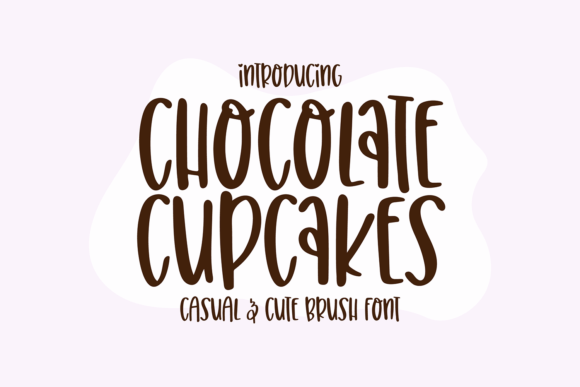
Introducing BFC Chocolate Cupcakes: The Whimsical Script Brush Font for Creative Projects
Are you looking for a font that adds a touch of whimsy and playfulness to your creative projects? Look no further than BFC Chocolate Cupcakes, a casual script brush font that’s perfect for social media, crafts, decor, invitations, and more! In this article, we’ll dive into the features and benefits of this delightful font and explore how you can use it to elevate your designs.
What is BFC Chocolate Cupcakes?
BFC Chocolate Cupcakes is a unique and charming script brush font that’s designed to bring a smile to your face. This font is perfect for anyone who loves baking, desserts, or just wants to add a touch of sweetness to their designs. With its casual and playful vibe, BFC Chocolate Cupcakes is ideal for creative projects that require a personal touch.
Key Features of BFC Chocolate Cupcakes
- Whimsical brush font: BFC Chocolate Cupcakes is a script brush font that mimics the look of handwritten text with a brush. It’s perfect for creating a personal and informal feel in your designs.
- Includes numbers and basic punctuation marks: This font includes a range of characters, including numbers, basic punctuation marks, and international characters, making it versatile and easy to use.
- Perfect for social media: BFC Chocolate Cupcakes is optimized for social media use, making it easy to create engaging and eye-catching posts that stand out from the crowd.
- Ideal for crafty projects: Whether you’re creating DIY crafts, decor, or invitations, BFC Chocolate Cupcakes is the perfect font to add a touch of personality to your projects.
Benefits of Using BFC Chocolate Cupcakes
So, why should you choose BFC Chocolate Cupcakes for your creative projects? Here are just a few benefits of using this delightful font:
- Adds a personal touch: BFC Chocolate Cupcakes adds a personal and informal feel to your designs, making them more relatable and engaging.
- Versatile: BFC Chocolate Cupcakes can be used for a range of creative projects, from social media posts to crafty DIY projects.
- Unique and eye-catching: This font is sure to grab attention and make your designs stand out from the crowd.
How to Use BFC Chocolate Cupcakes
Using BFC Chocolate Cupcakes is easy! Here are a few ways you can incorporate this font into your creative projects:
- Social media posts: Use BFC Chocolate Cupcakes to create eye-catching social media posts that showcase your personality and style.
- DIY crafts: Add a personal touch to your DIY crafts, such as decorations, invitations, and cards, with this whimsical font.
- Branding: Use BFC Chocolate Cupcakes to create a unique and memorable brand identity that sets you apart from the competition.
- Invitations: Create beautiful and personalized invitations for special occasions, such as birthdays, weddings, and baby showers.
Tips and Tricks for Using BFC Chocolate Cupcakes
Here are a few tips and tricks to help you get the most out of BFC Chocolate Cupcakes:
- Experiment with colors: Try pairing BFC Chocolate Cupcakes with different colors and textures to create a unique and eye-catching look.
- Play with font sizes: Experiment with different font sizes to create visual interest and hierarchy in your designs.
- Add graphics and images: Combine BFC Chocolate Cupcakes with graphics and images to create a visually appealing design.
BFC Chocolate Cupcakes is a delightful and whimsical script brush font that’s perfect for creative projects that require a personal touch. With its casual and playful vibe, this font is ideal for social media, crafts, decor, invitations, and more! Whether you’re a designer, DIY enthusiast, or social media influencer, BFC Chocolate Cupcakes is sure to bring a smile to your face and add a touch of sweetness to your designs.